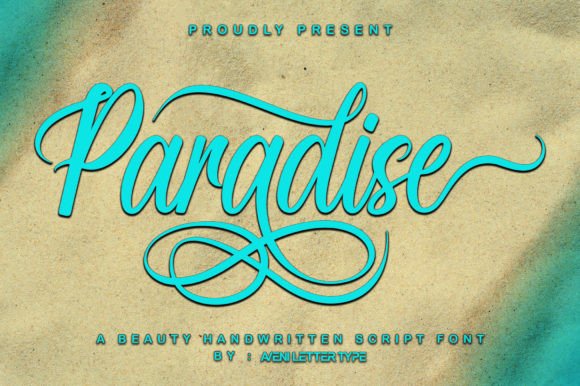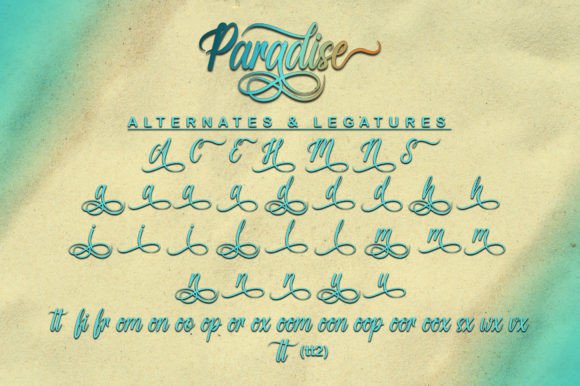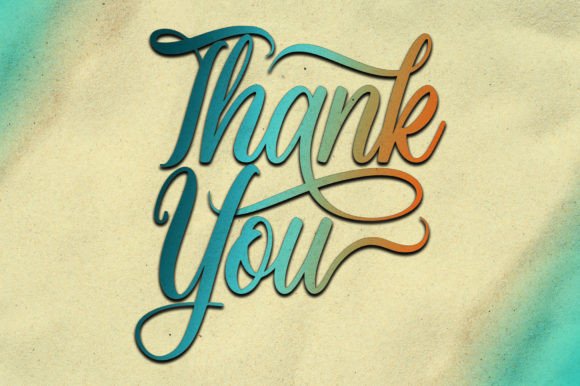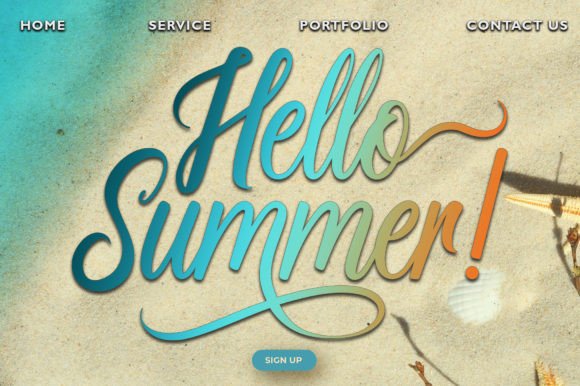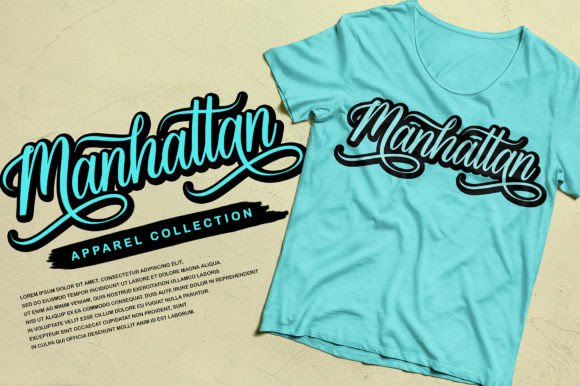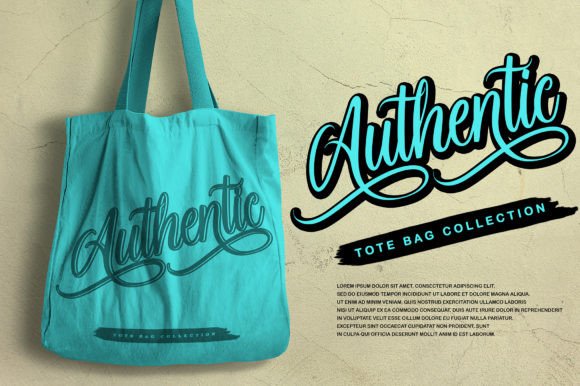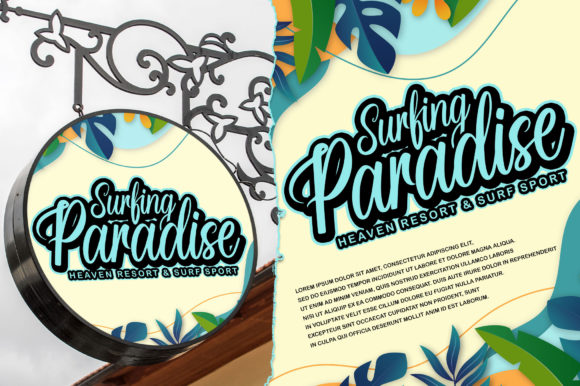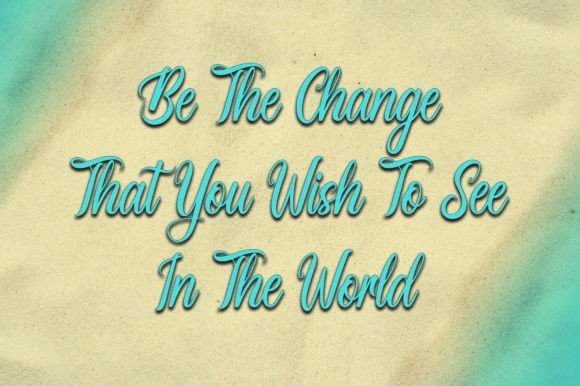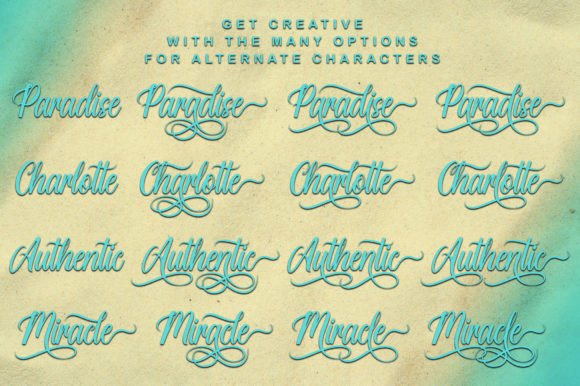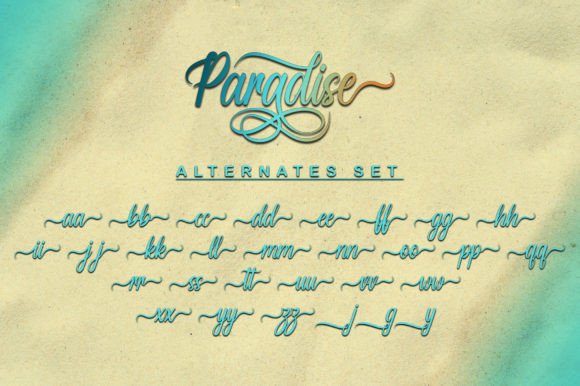
Paradise Font
About Paradise Font
“Paradise” is introduced as a stunning, well-defined, and balanced script font, tailored for diverse branding projects, including logos, t-shirt printing, creative products, and more. Additionally, it is highlighted that “Paradise” is PUA encoded, ensuring easy access to all the glyphs and swashes for enhanced customization.
The description of “Paradise” as stunning, well-defined, and balanced suggests a font with visual appeal, clarity, and equilibrium. This positioning makes it suitable for applications where a refined and balanced aesthetic is desired, particularly in branding and creative product designs.
The inclusion of PUA encoding is emphasized as a feature that enhances the font’s accessibility, allowing designers to easily access various design elements and swashes. This capability contributes to the font’s flexibility, enabling personalized and customizable typographic compositions.
In summary, “Paradise” is presented as a stunning and balanced script font, well-suited for various branding projects. Its emphasis on visual appeal and the availability of PUA encoding positions it as a versatile choice for designers seeking a script font that brings a sense of elegance and customization to their creative endeavors.